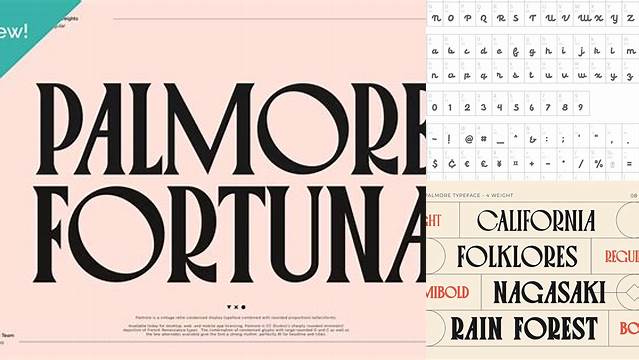
Understanding the Palmore Regular Font
So, what exactly is the Palmore Regular Font? Well, it's a versatile typeface known for its clean lines and balanced proportions. It offers a blend of readability and style, making it suitable for a wide range of applications. The Palmore Regular font typically comes with a standard set of characters, including uppercase and lowercase letters, numbers, and basic punctuation marks. Some versions might also include special characters or ligatures. Its design aesthetic is generally categorized as modern and friendly, making it a great fit for both digital and print media. Think of it as the Goldilocks of fonts - not too bold, not too subtle, but just right for most needs. The font's inherent readability makes it a perfect choice for body text, while its stylish elements ensure it can hold its own in headings and titles. Designers often appreciate Palmore Regular because it avoids the pitfalls of being overly trendy or dated; it's a classic that can adapt to evolving design trends without feeling out of place. Because of its neutral yet appealing design, Palmore Regular is a popular selection for a diverse array of design tasks, including website design, creating marketing materials, and making presentations. It's all about making sure the message gets across in a style that is both elegant and effective.
When considering a font like Palmore Regular, the core elements that contribute to its popularity are clear. Readability is key; the font is designed to be easily deciphered, so text stays accessible regardless of its usage. Versatility ensures that Palmore Regular performs well across various project types, from websites to printed media. The balance in its design is another point: the typeface is carefully constructed to avoid being overbearing or too understated, resulting in a balanced and aesthetically pleasing outcome. For designers and casual users alike, the Palmore Regular font offers a seamless, dependable choice, fitting for different projects. The overall impression is one of refined simplicity, allowing the font to blend in with the design and not distract the viewer. It's a workhorse font that does its job well, consistently making text look clean, accessible, and appealing. It does this, thanks to careful consideration of the factors that define a great font.
The Design Philosophy Behind Palmore Regular
The design philosophy behind Palmore Regular is rooted in creating a typeface that embodies both functionality and aesthetic appeal. The designers likely focused on achieving a harmonious balance between readability and stylistic flair. It's evident that they aimed for a font that would be versatile enough to be used across different platforms and applications, avoiding overly intricate designs. A major principle would have been legibility, ensuring that each character is distinct and easy to recognize, even at smaller sizes. This is crucial for body text, where readers need to effortlessly comprehend the content. The designers probably paid close attention to the weight and spacing of the letters to ensure that the font doesn’t appear too heavy or too light, thus improving reading experience. A careful approach to kerning (the spacing between letters) would have been essential for achieving a smooth visual flow.
The design also likely embraced a modern and clean aesthetic. Contemporary designs tend to favor simple, streamlined forms. The font probably avoided elaborate serifs or overly ornate details, opting instead for a minimalistic approach that is popular with contemporary visual styles. This choice enhances the font's timelessness and adaptability. Consideration might have been given to the font's suitability for various design contexts. In marketing, branding, and website design, Palmore Regular can seamlessly integrate into a wide range of creative projects. Ultimately, the core design philosophy behind Palmore Regular prioritizes both visual appeal and usability, with the aim of providing designers and users with a reliable and attractive typeface. The key is to create something that looks great and functions brilliantly across all applications. The goal is a font that is a reliable, easy-to-use choice.